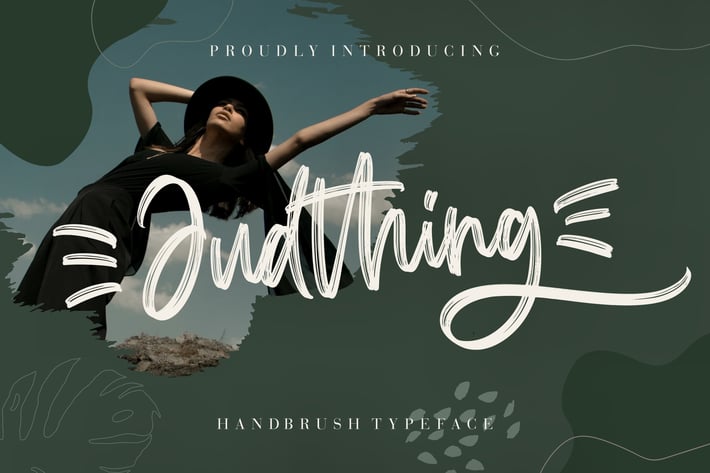
Judthing Handbrush Typeface
Judthing is natural handbrush font which looks modern and classy will perfect for your project.
Judthing is perfect for branding projects, logo, wedding designs, social media posts, advertisements, product packaging, product designs, label, photography, watermark, invitation, stationery and any projects that need handwriting taste.
Ton of glyphs
Ligature & Alternate